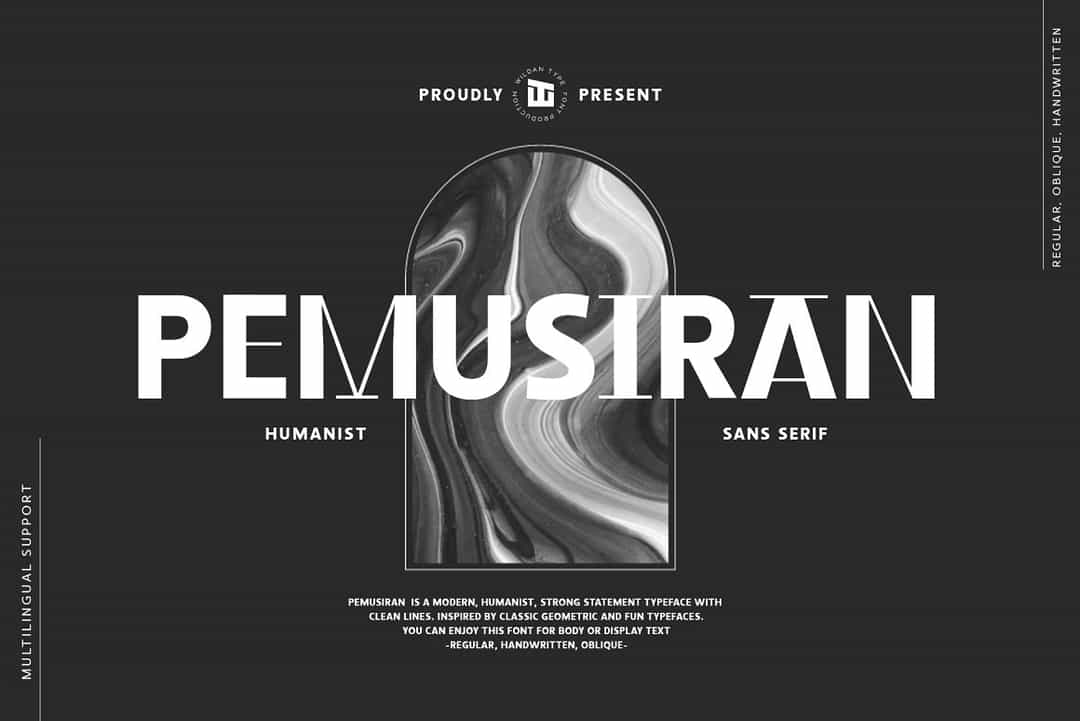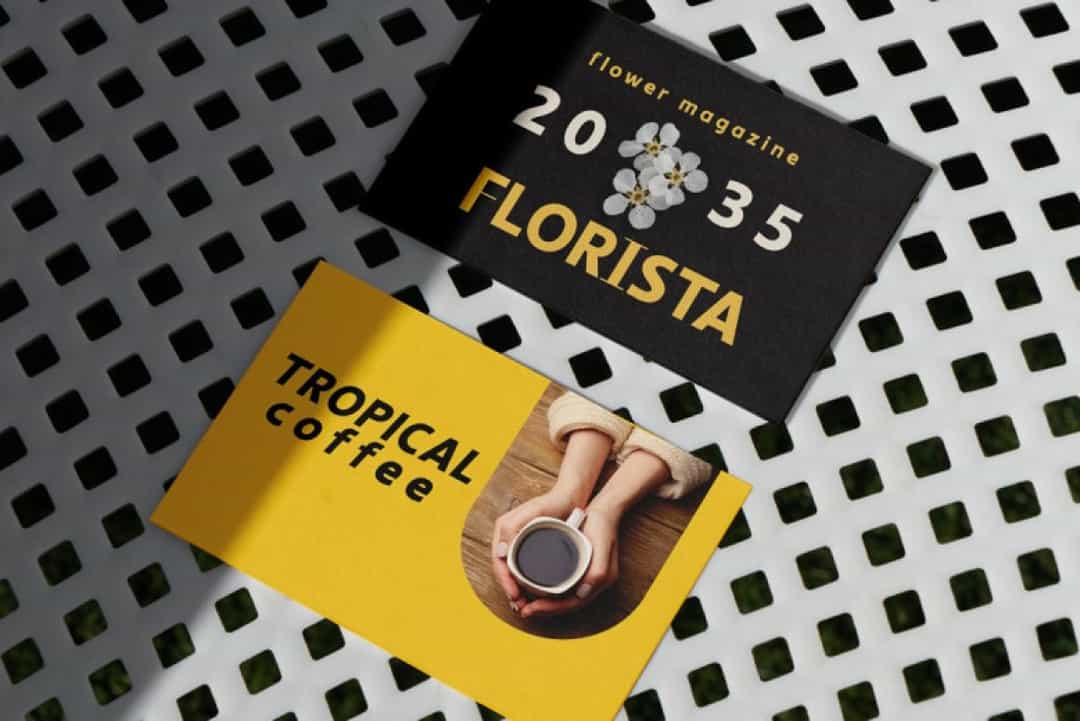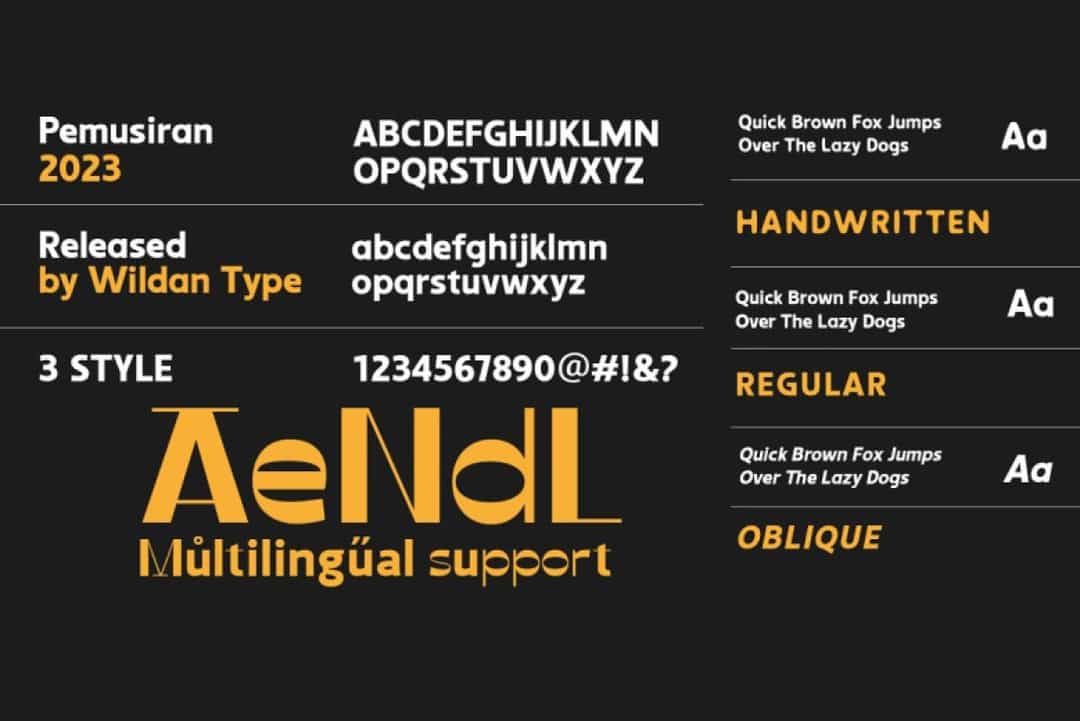
Are you searching for a contemporary and eye-catching font that will make you standout from the competition? Consider Pemusiran’s font collection! Choose between regular handwritten, oblique and regular styles as well as various alternative ones which could work perfectly with your design project.